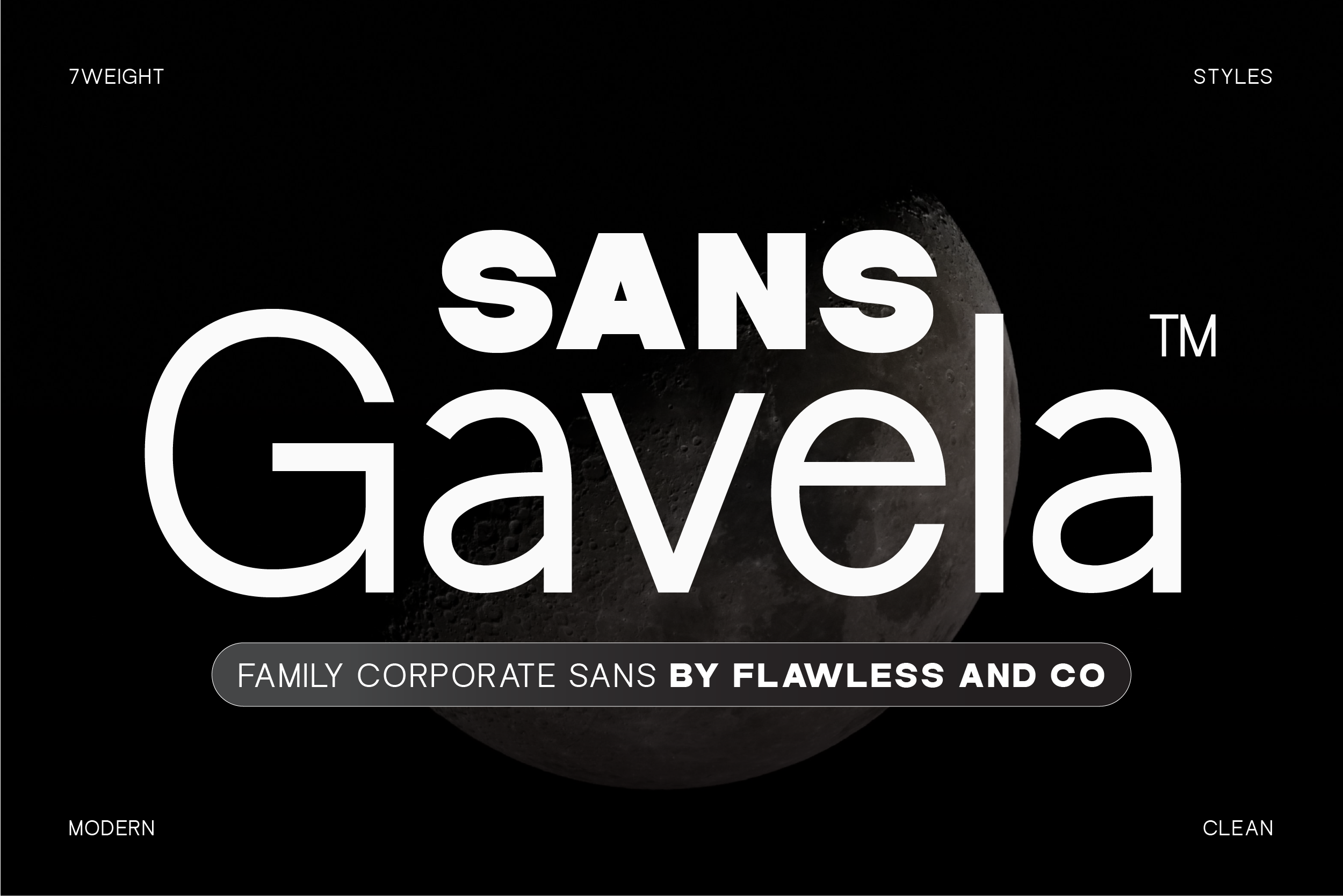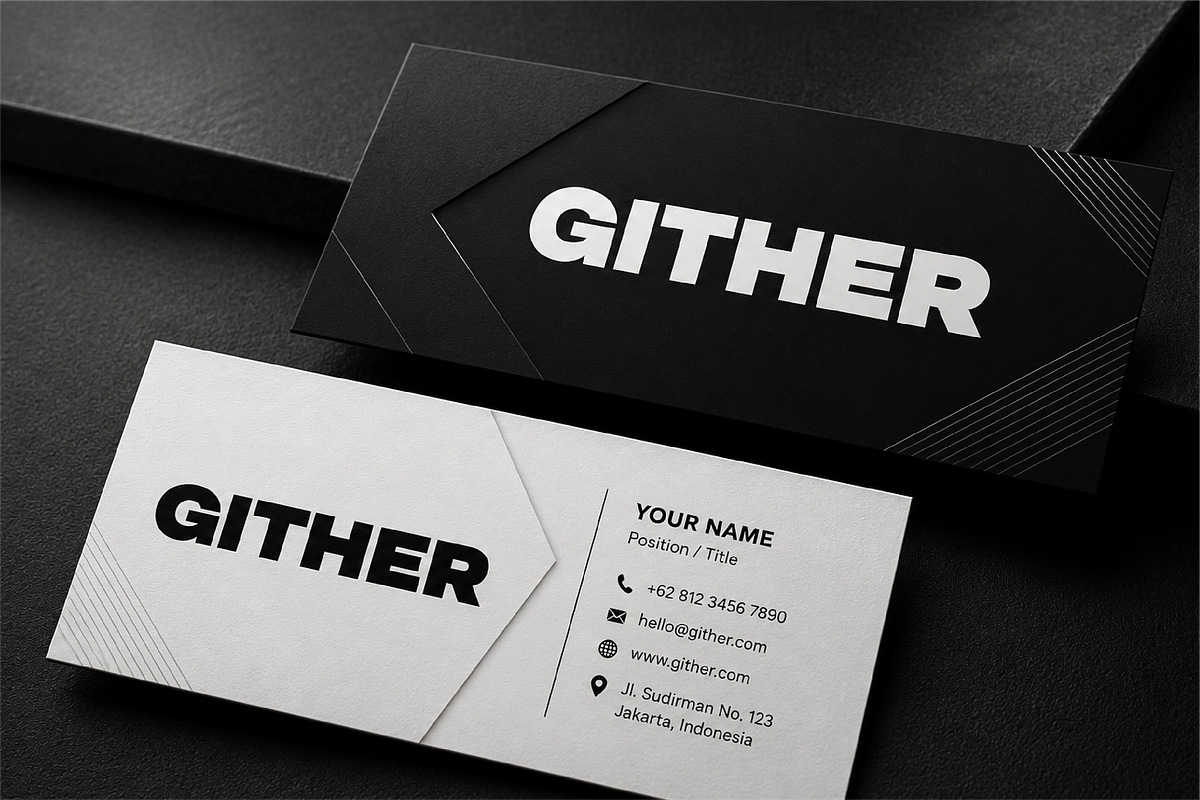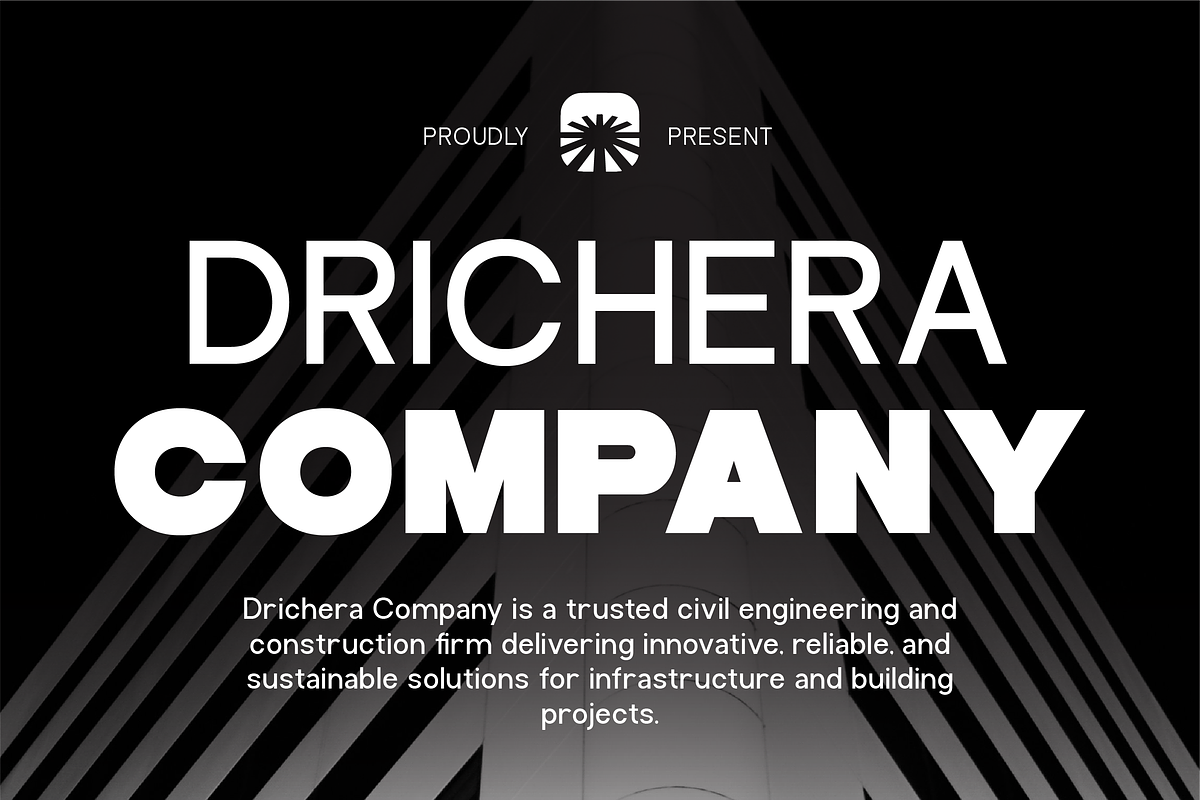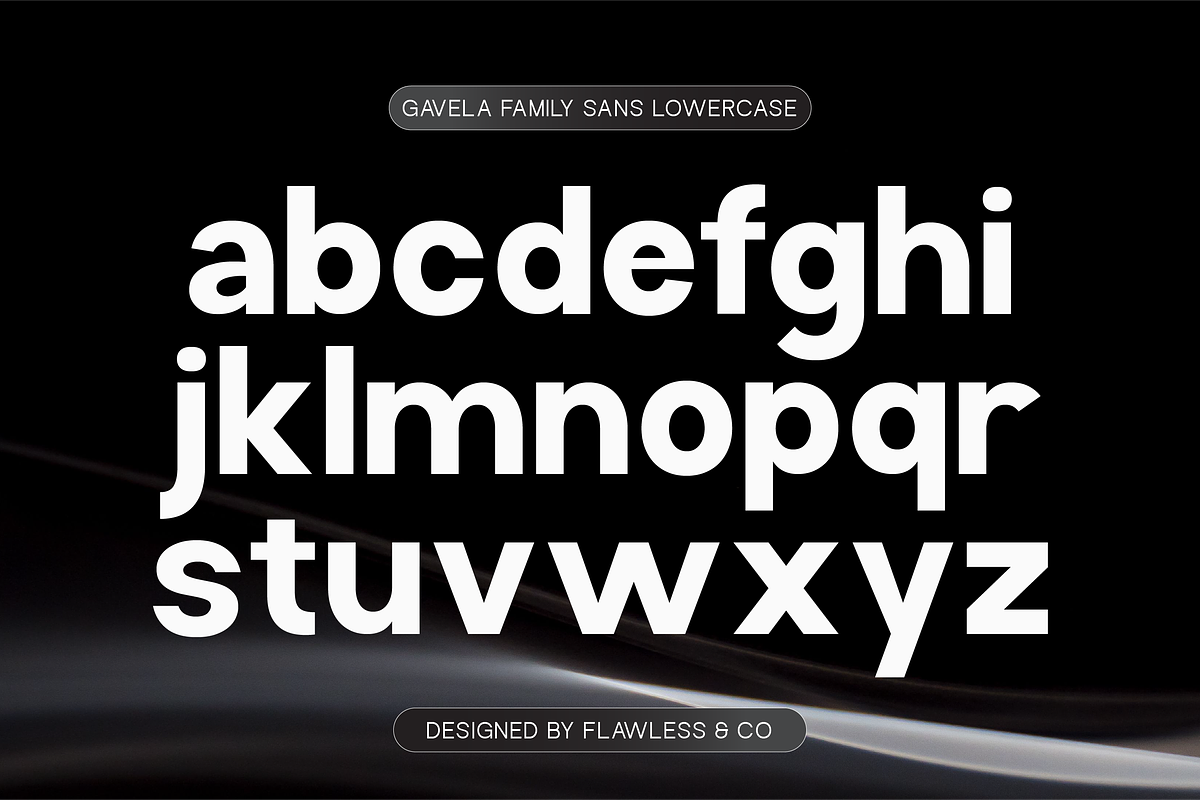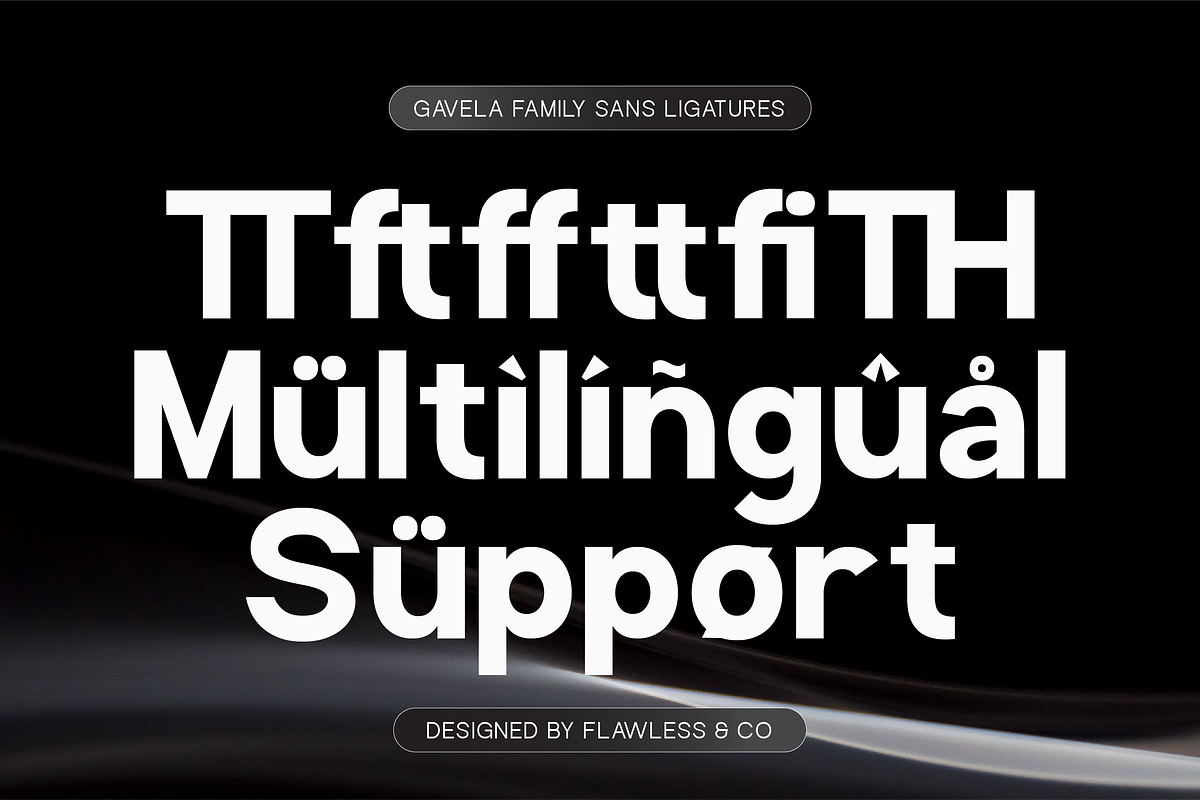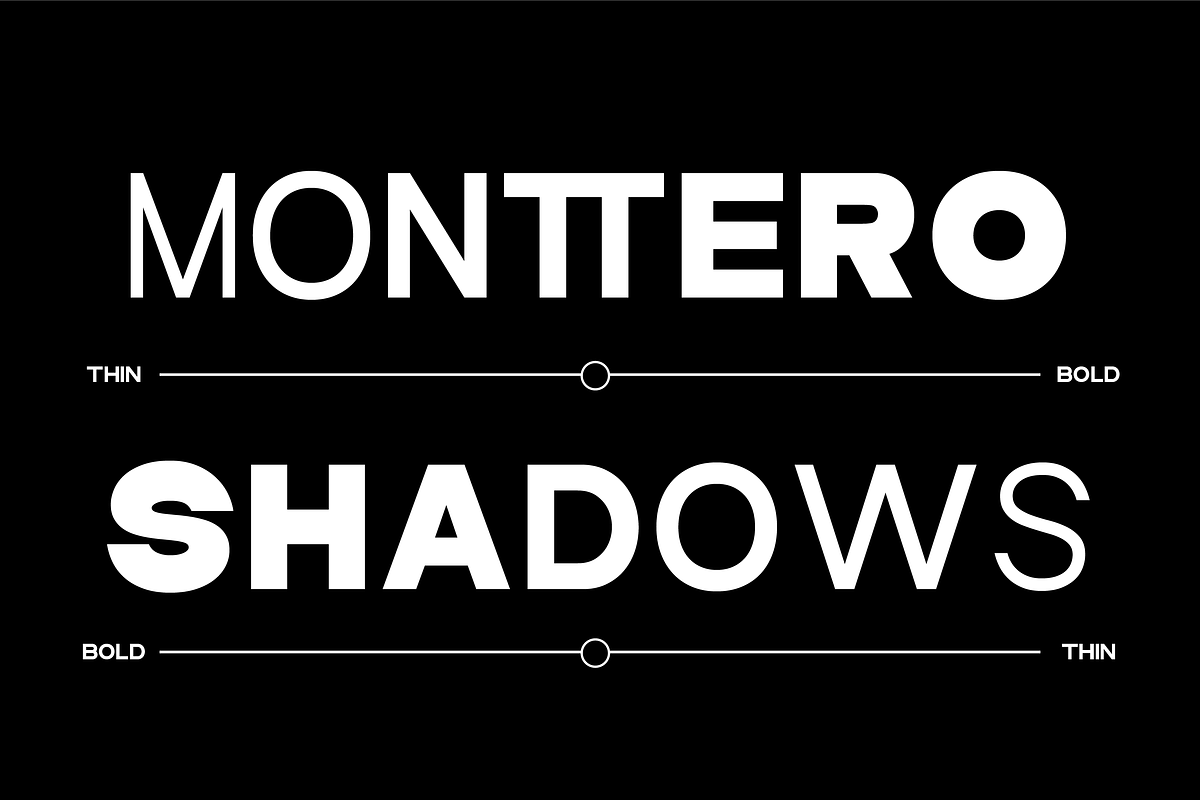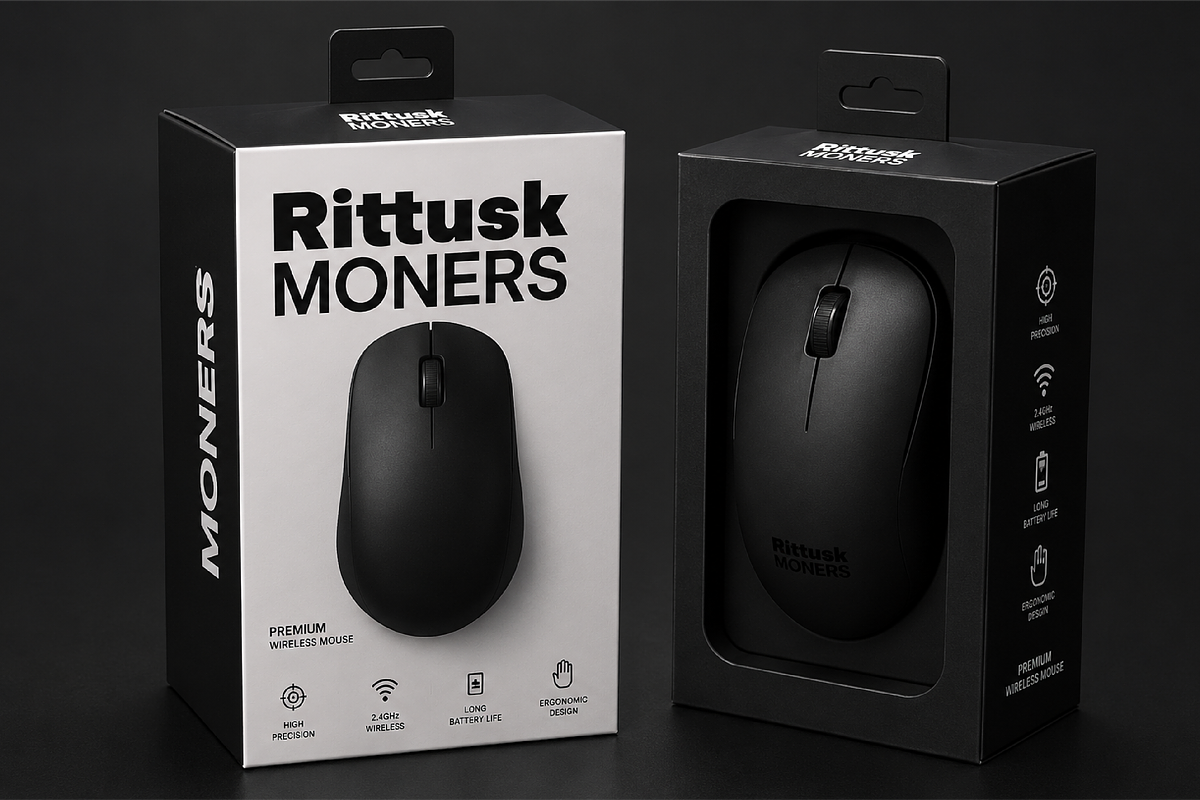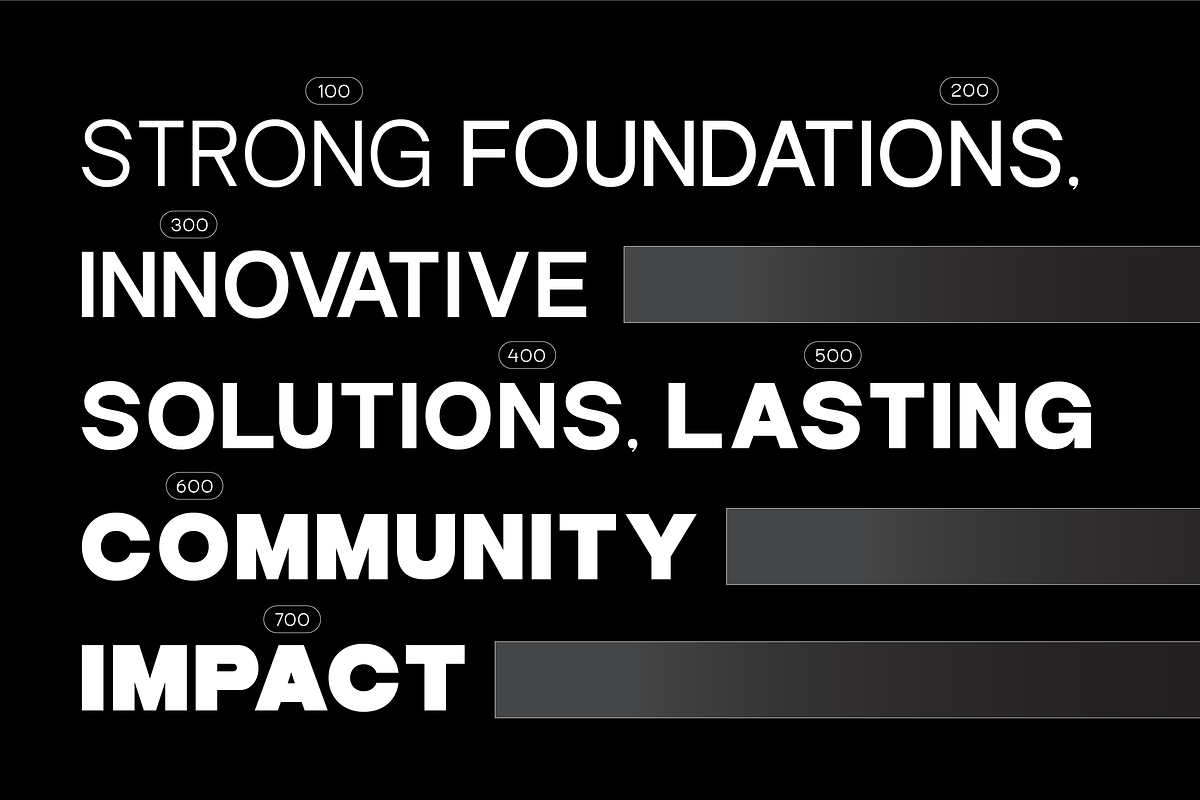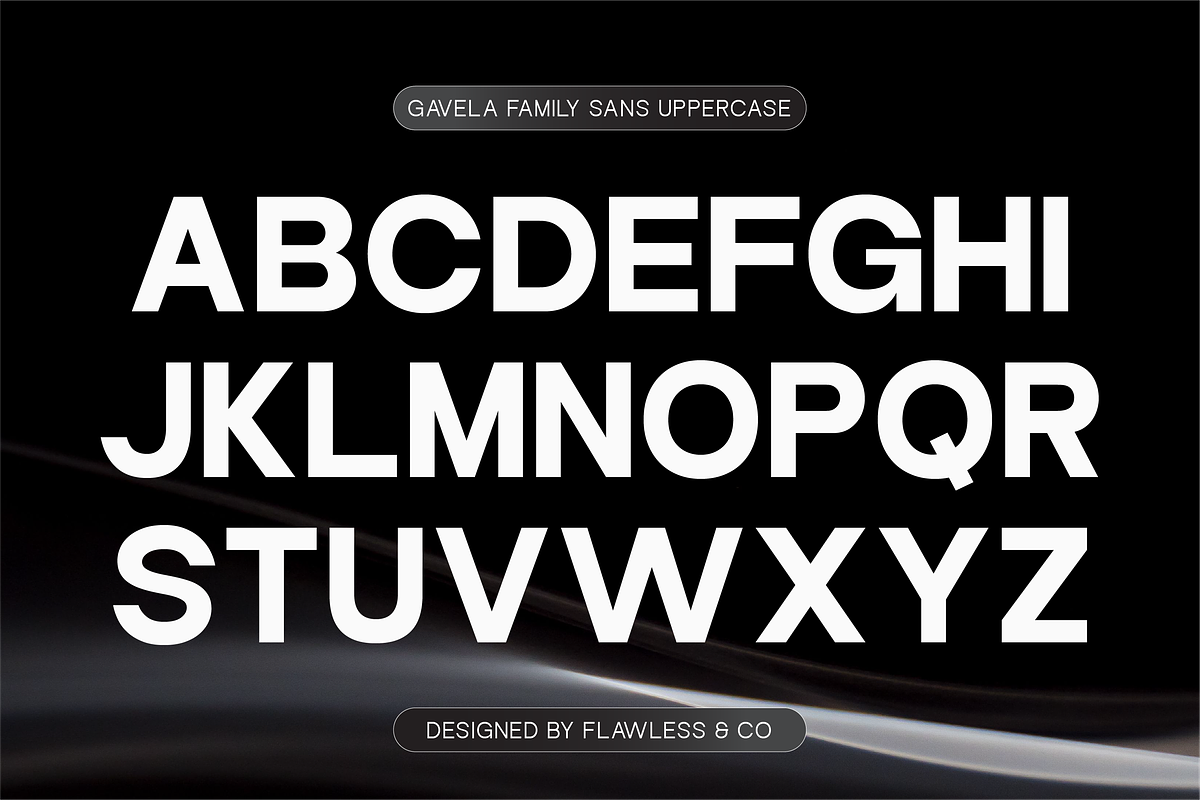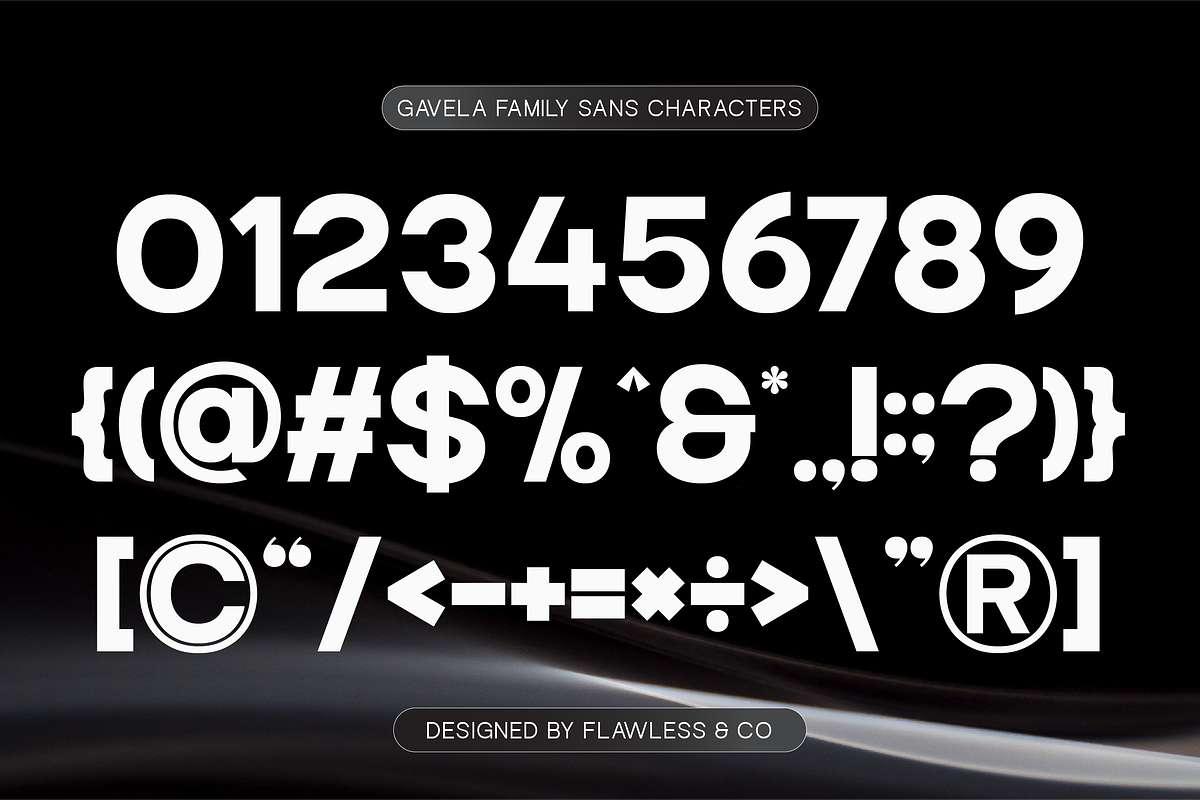
Gavela - Family Corporate Sans Font
Gavela - Family Corporate Sans Serif Font
Gavela is a contemporary corporate sans serif font family crafted for modern businesses, professional brands, and design systems that demand clarity and consistency. Featuring clean lines, balanced spacing, and a refined structure, Gavela delivers a polished visual appearance that feels professional, reliable, and forward-thinking. Its modern design approach ensures excellent readability while maintaining a sophisticated corporate character.
Designed to perform across a variety of applications, Gavela provides a complete typographic solution for branding, communication, and digital experiences. The family structure allows seamless hierarchy creation, making it easy to build cohesive layouts from headlines to body text. Whether used in corporate identities, websites, presentations, or marketing materials, Gavela offers a timeless and versatile typographic foundation.
Who Should Use Gavela?
Gavela is perfect for designers, agencies, startups, corporations, and organizations seeking a professional sans serif family with a clean and modern aesthetic. It’s especially suitable for projects that require strong brand consistency, excellent readability, and contemporary visual communication.
Suitable For:
Corporate identity systems
Business branding and marketing
Website and application design
Editorial and publication layouts
Technology and companies
Presentation and reporting materials
Advertising and promotional campaigns
Professional typography systems